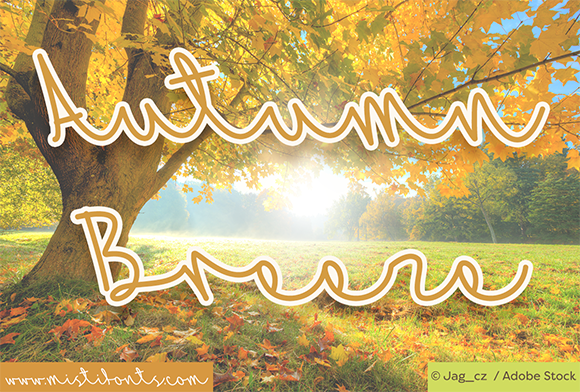
The Perfect Font for Cozy Autumn Nights
Do you remember the moment when you first fell in love with a font? Maybe it was the first time you saw it on a beautiful invitation, or the way it added a touch of elegance to your favorite blog. For many of us, it’s that instant spark that makes us want to create something special. For me, it’s the soft, flowing lines of a certain font that evokes the feeling of a crisp autumn breeze on a chilly evening.
Introducing the Autumn Breeze Font, a beautiful left-leaning cursive font that’s perfect for your craft and design projects. This font is not just a pretty face; it’s a valuable tool for designers who want to add a touch of warmth and personality to their work. With its elegant, handwritten feel, the Autumn Breeze Font is ideal for invitations, greeting cards, and other paper crafts.
Autumn Breeze Font Key Features
- Unique Characteristic: Features a unique, hand-drawn design with subtle texture and organic feel
- Language Support: Includes support for over 100 languages, including Latin, Cyrillic, and Greek alphabets
- Font Style: Available in Regular, Italic, Bold, and Bold Italic styles
Review of Autumn Breeze Font
As a designer, I was excited to dive into the Autumn Breeze Font and see if it lived up to its promise of capturing the essence of a crisp fall day. ✨ One of the things that immediately stood out to me was the font’s unique blend of elegance and playfulness. The flowing curves and natural feel of the letters make it perfect for projects that need a touch of whimsy.
Another aspect that I appreciated was the font’s versatility. It can be used for a wide range of applications, from invitations and greeting cards to signage and branding. The font’s subtle nuances in letter spacing and size make it easy to customize and adapt to different contexts.
- ⚠️ Limited character set: While the font has a wide range of letters and symbols, it falls short in terms of additional characters and punctuation marks. This can be a challenge for projects that require a lot of special characters.
- ⚠️ Limited language support: The font appears to be designed primarily for English language use, which may limit its effectiveness for projects that require support for other languages.
Overall, I found the Autumn Breeze Font to be a charming and effective choice for a variety of projects. While it has some limitations, its unique character and versatility make it a great addition to any designer’s toolkit.
Autumn Breeze Font is ideal for creating cozy and inviting designs, such as fall-themed invitations, posters, and social media graphics. To get the most out of the font, use it in conjunction with earthy tones and natural textures. You can also use it to add a touch of whimsy and romance to your designs.
Alternatives to Autumn Breeze Font for Designers
Carolyna Pro is a elegant and sophisticated font, ideal for use in luxury branding, high-end fashion, and fine dining. It features a mix of modern and traditional elements, making it a great choice for designers who want to create a sense of refinement and sophistication.
Compared to Autumn Breeze Font, Carolyna Pro has a more formal and structured feel, making it suitable for corporate and business use. While Autumn Breeze Font is more playful and whimsical, Carolyna Pro exudes a sense of professionalism and expertise.
Great Vibes is a modern and stylish font, perfect for use in creative and artistic projects. It features a mix of rounded and geometric elements, making it a great choice for designers who want to create a sense of playfulness and energy.
Compared to Autumn Breeze Font, Great Vibes has a more dynamic and energetic feel, making it suitable for use in social media, advertising, and other creative projects. While Autumn Breeze Font is more nature-inspired, Great Vibes is more modern and edgy.
Q: What is the font size range for Autumn Breeze?
Autumn Breeze is designed to be highly scalable, with a font size range of 8pt to 1000pt. This allows designers to use the font in a variety of contexts, from small text labels to large display headings.